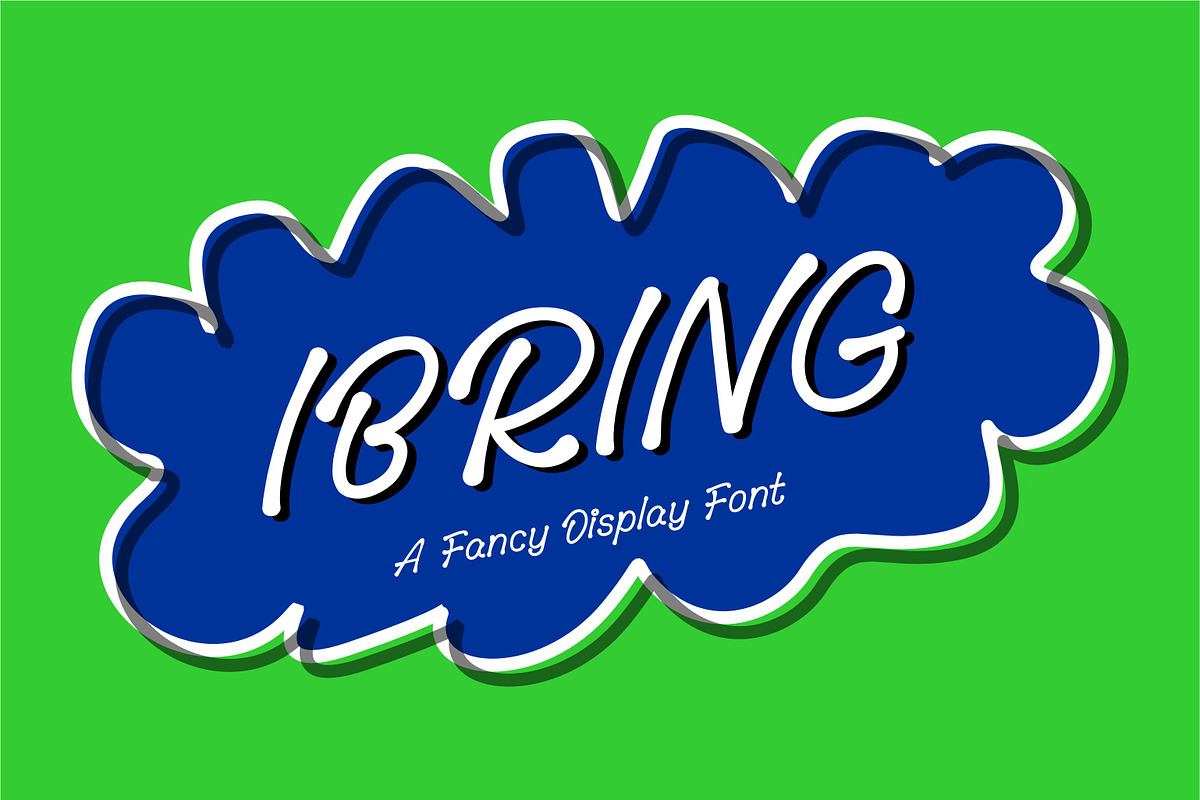
Ibring Font Free Download is a bold and modern typeface designed to deliver impact and personality. With clean lines, stylish curves, and a confident structure, this font is perfect for branding, social media graphics, posters, packaging, and standout logo design.
Its unique letterforms give it a contemporary edge while maintaining excellent readability. Whether you're creating visual content for a trendy startup, a personal portfolio, or promotional materials, Ibring adds character and style to every word.
Designers love Ibring for its balance of creativity and professionalism, making it versatile for both bold headers and elegant text layouts. Want to bring energy and modern flair to your next project? Download Ibring Font Free Download and make a statement with typography that truly stands out.